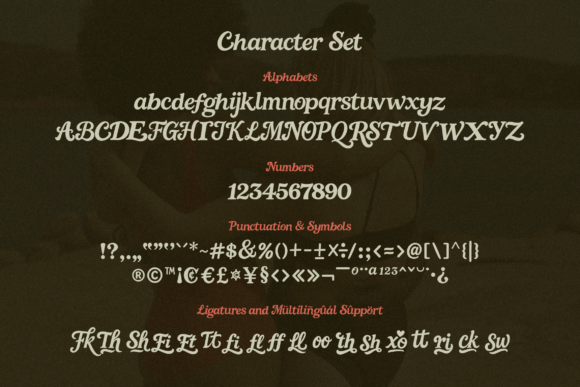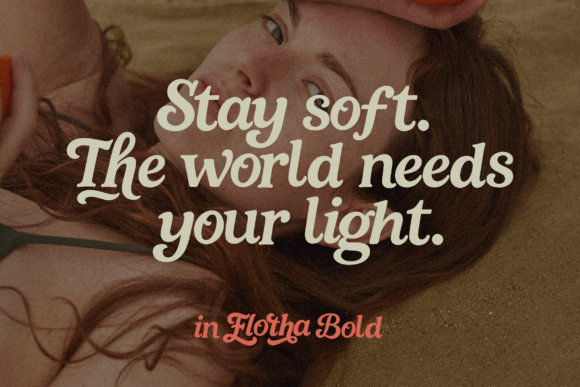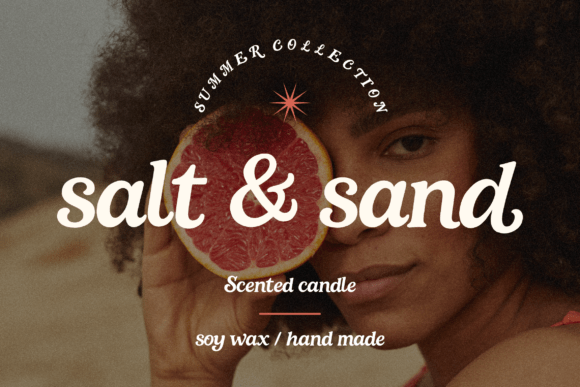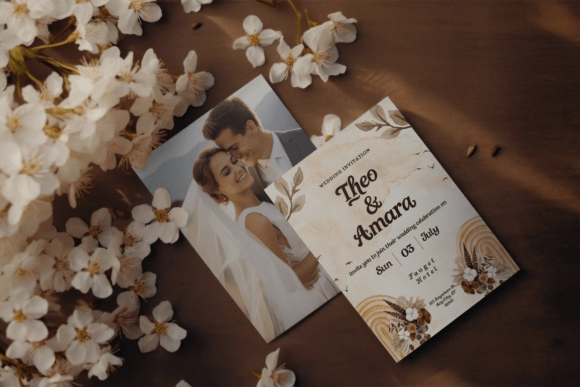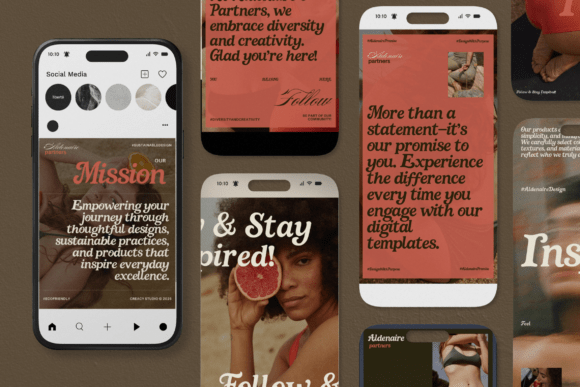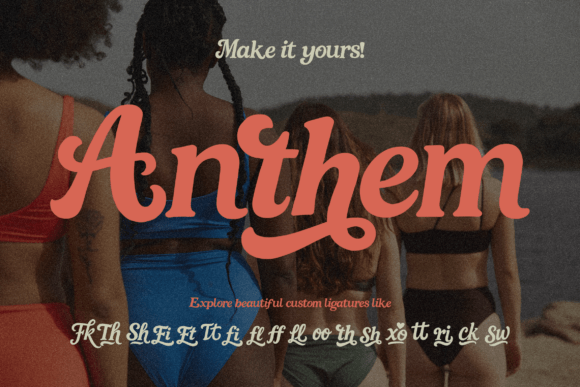
Introducing Flotha Font: The Ultimate Display Font for Creative Projects
Are you tired of using the same old fonts for your creative projects? Look no further than Flotha Font, a bold and bouncy display font that’s sure to add a playful touch to your designs. With its hand-drawn aesthetic and energetic vibe, Flotha Font is perfect for designers and crafters looking to add some personality to their work.
The Story Behind Flotha Font
Flotha Font is a carefully crafted display font that’s been hand-drawn with a brush pen. Each letter has been designed to flow with personality and style, giving your text a unique and eye-catching look. The font’s creator has poured their heart and soul into designing a font that’s both fun and functional, making it perfect for a wide range of creative projects.
What Makes Flotha Font So Special?
So, what sets Flotha Font apart from other display fonts on the market? Here are just a few of its standout features:
- Bold and Bouncy: Flotha Font has a bold and bouncy aesthetic that’s sure to grab attention. Its energetic vibe makes it perfect for designs that need to stand out from the crowd.
- Hand-Drawn with Love: Each letter has been carefully hand-drawn with a brush pen, giving the font a unique and personal touch.
- Playful Energy: Flotha Font has a playful energy that’s perfect for creative projects that need a bit of whimsy.
- Aesthetic Charm: The font’s hand-drawn aesthetic gives it a charming and endearing quality that’s sure to delight.
Flotha Font is perfect for a wide range of creative projects, including:
- Creative Branding: Use Flotha Font to add a playful touch to your brand’s logo or marketing materials.
- Instagram Templates: Add a pop of personality to your Instagram templates with Flotha Font.
- Packaging: Use Flotha Font to create eye-catching packaging that stands out on store shelves.
- Wedding Stationery: Add a touch of whimsy to your wedding stationery with Flotha Font.
Why Designers and Crafters Love Flotha Font
Designers and crafters love Flotha Font for its unique blend of style and personality. Here are just a few reasons why:
- Easy to Read: Despite its bold and bouncy aesthetic, Flotha Font is easy to read, making it perfect for designs that need to communicate a message.
- Versatile: Flotha Font can be used for a wide range of creative projects, from branding and marketing to packaging and wedding stationery.
- Unique: Flotha Font’s hand-drawn aesthetic makes it truly unique, ensuring that your designs stand out from the crowd.
Tips for Using Flotha Font
Here are a few tips for getting the most out of Flotha Font:
- Use it Sparingly: Flotha Font is bold and attention-grabbing, so use it sparingly to avoid overwhelming your design.
- Pair it with Other Fonts: Pair Flotha Font with other fonts to create a unique and eye-catching look.
- Experiment with Colors: Flotha Font looks great in a wide range of colors, so don’t be afraid to experiment and find the perfect hue for your design.
Flotha Font is a bold and bouncy display font that’s perfect for designers and crafters looking to add some personality to their creative projects. With its hand-drawn aesthetic and energetic vibe, Flotha Font is sure to grab attention and leave a lasting impression. Whether you’re working on a branding project, creating Instagram templates, or designing packaging, Flotha Font is the perfect choice.